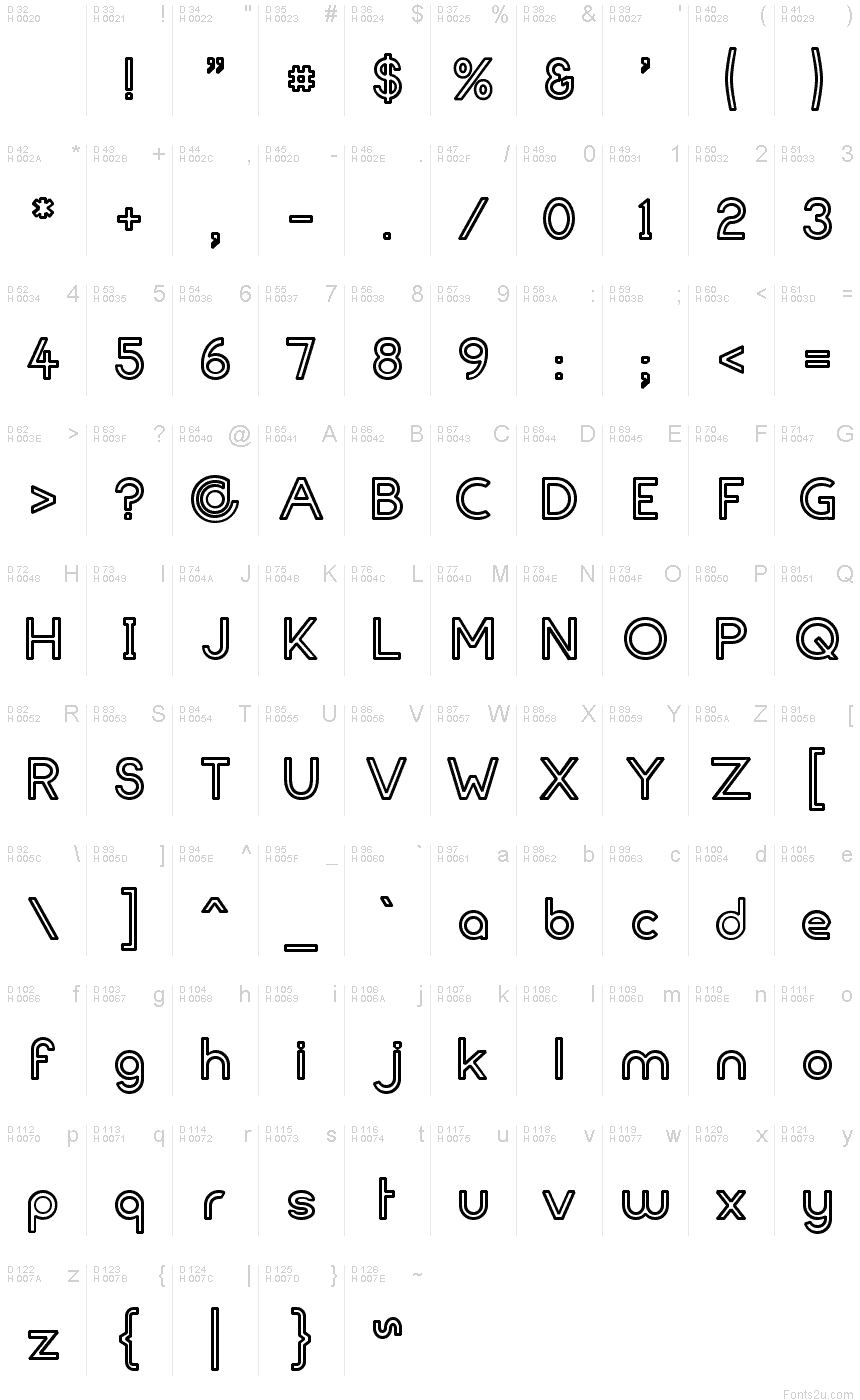
FortuneCity Outline
FortuneCity Outline by GemFonts is a free outlined display font drawn with smooth, even, hollow strokes and broad circular forms. Rounded curves and squared-off ends clearly recall brightly bent tubing.
The continuous contour style can echo line illustrations in posters, digital graphics, and game artwork, particularly when the project has a light retro-tech theme. For merchandise and event branding, the letters can become part of the artwork itself by repeating those looping paths in simple icons, borders, or circuit-like patterns.